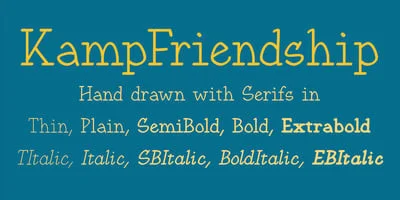
KampFriendship Font
KampFriendship Font presents designers with a cheerful typeface that embodies camaraderie and outdoor adventure with camp spirit. However, for commercial use, you must purchase this font. You can download it for free for testing purposes only.
KampFriendship Font excels in outdoor design applications including summer camp branding, youth organization materials, outdoor adventure programs, friendship-themed events, camp counselor training, wilderness retreat communications, scouting organization graphics, outdoor education centers, camping gear packaging, and wholesome lifestyle campaigns. This friendly typeface brings authentic camp spirit to adventure-focused design projects.
What makes KampFriendship Font truly exciting is its perfect capture of summer camp nostalgia with welcoming letterforms that evoke campfire stories and lifelong friendships through warm design elements. The font features friendly characters with camp proportions and adventurous appeal that convey community, outdoor fun, and the transformative power of shared wilderness experiences. Its camp personality and friendship character make it ideal for brands celebrating outdoor education, youth development, and audiences who appreciate camp traditions, outdoor adventures, and the lasting bonds formed through shared experiences in nature's classroom.
The KampFriendship Font family typically includes Regular weight with potential rustic variations and camp elements that enhance its outdoor character. These friendly options provide designers with complete camp styling while maintaining the font's distinctive wholesome elegance and adventure presentation across various outdoor applications and youth contexts.
Whether you're developing outdoor education branding, creating camp campaigns, or designing youth adventure materials, KampFriendship Font delivers the outdoor authority and friendship sophistication that camp-focused projects require. Its exceptional warmth and adventure appeal make it invaluable for designers working with youth organizations, outdoor education programs, and friendship-focused brands requiring typography that celebrates camp traditions, outdoor learning, and the beautiful bonds of friendship that develop when young people come together to explore nature, learn life skills, and create memories that last a lifetime through the magic of summer camp experiences.